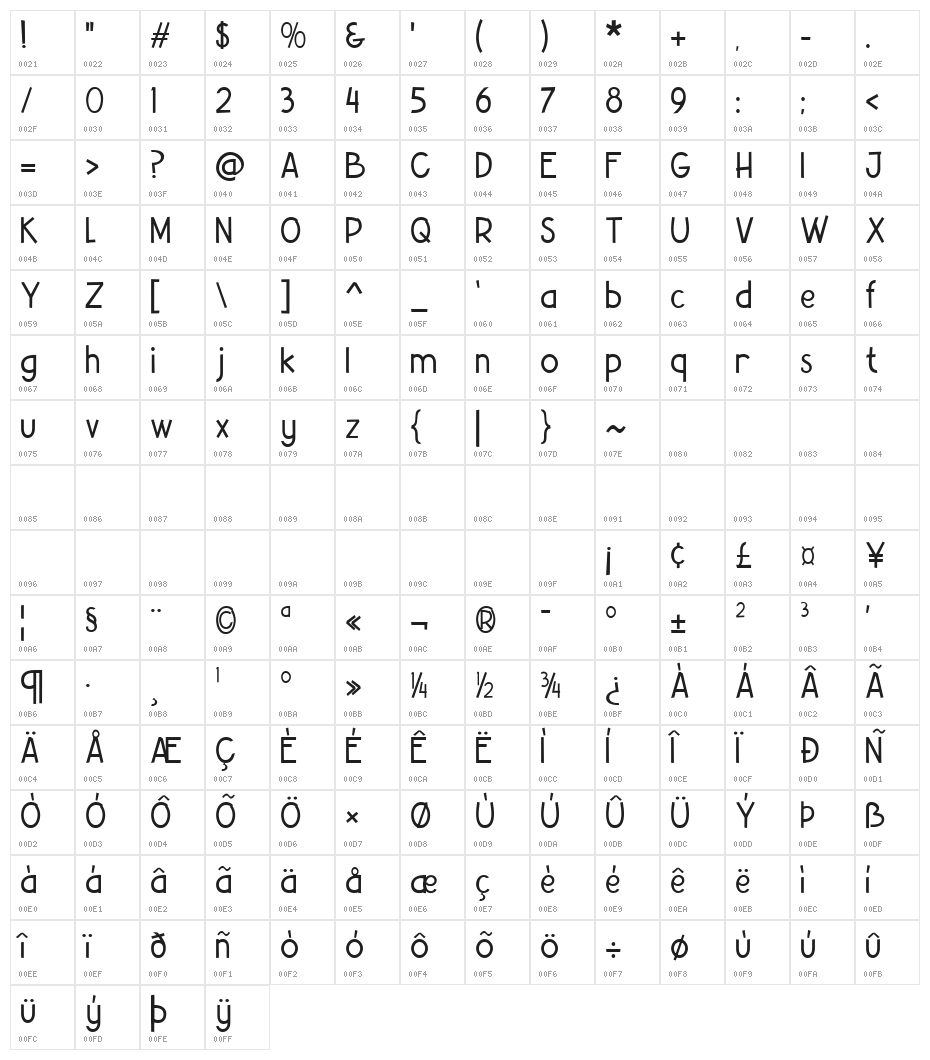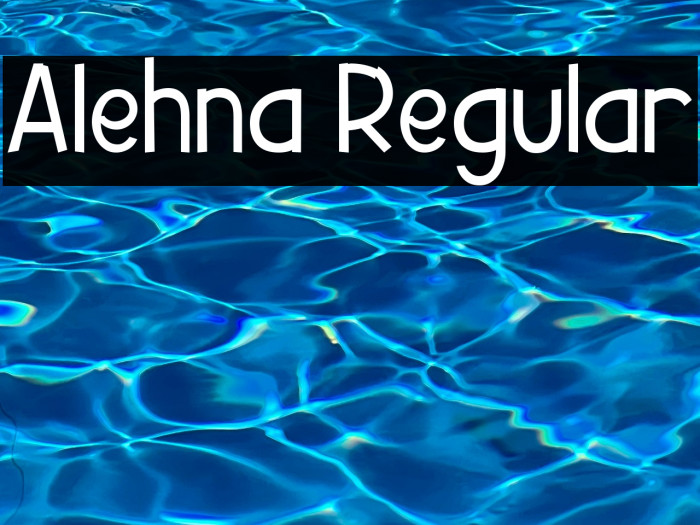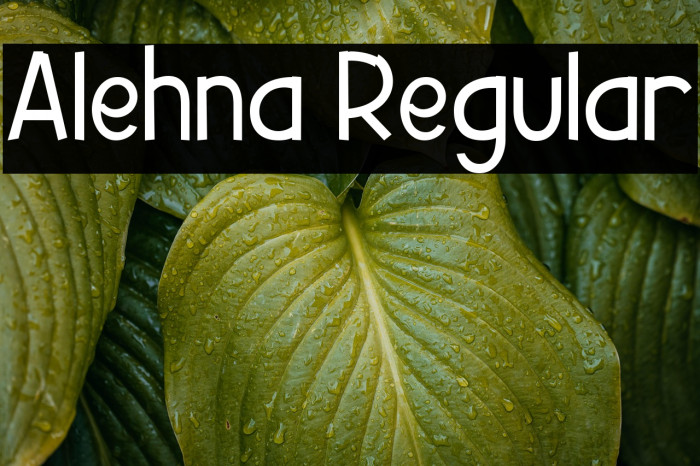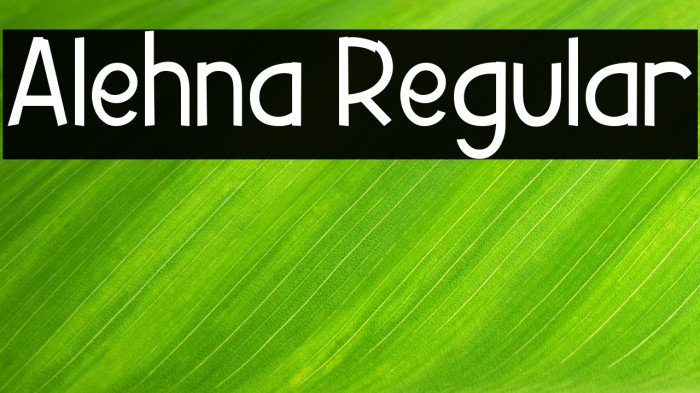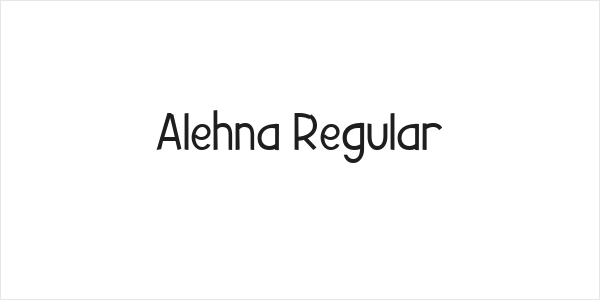
Alehna Regular Font
Alehna Regular Description
This font features a clean and modern design with a slightly playful touch. The letters are well-proportioned, with a consistent stroke width that gives it a balanced appearance. The uppercase characters are bold and assertive, while the lowercase letters maintain a friendly and approachable feel. The numerals are clear and easy to read, making them suitable for a variety of applications. Special characters are designed with the same attention to detail, ensuring a cohesive look across all glyphs. This font is versatile, making it ideal for both digital and print media.
| Proposed Projects | Ideal for branding, advertising, web design, and editorial projects. |